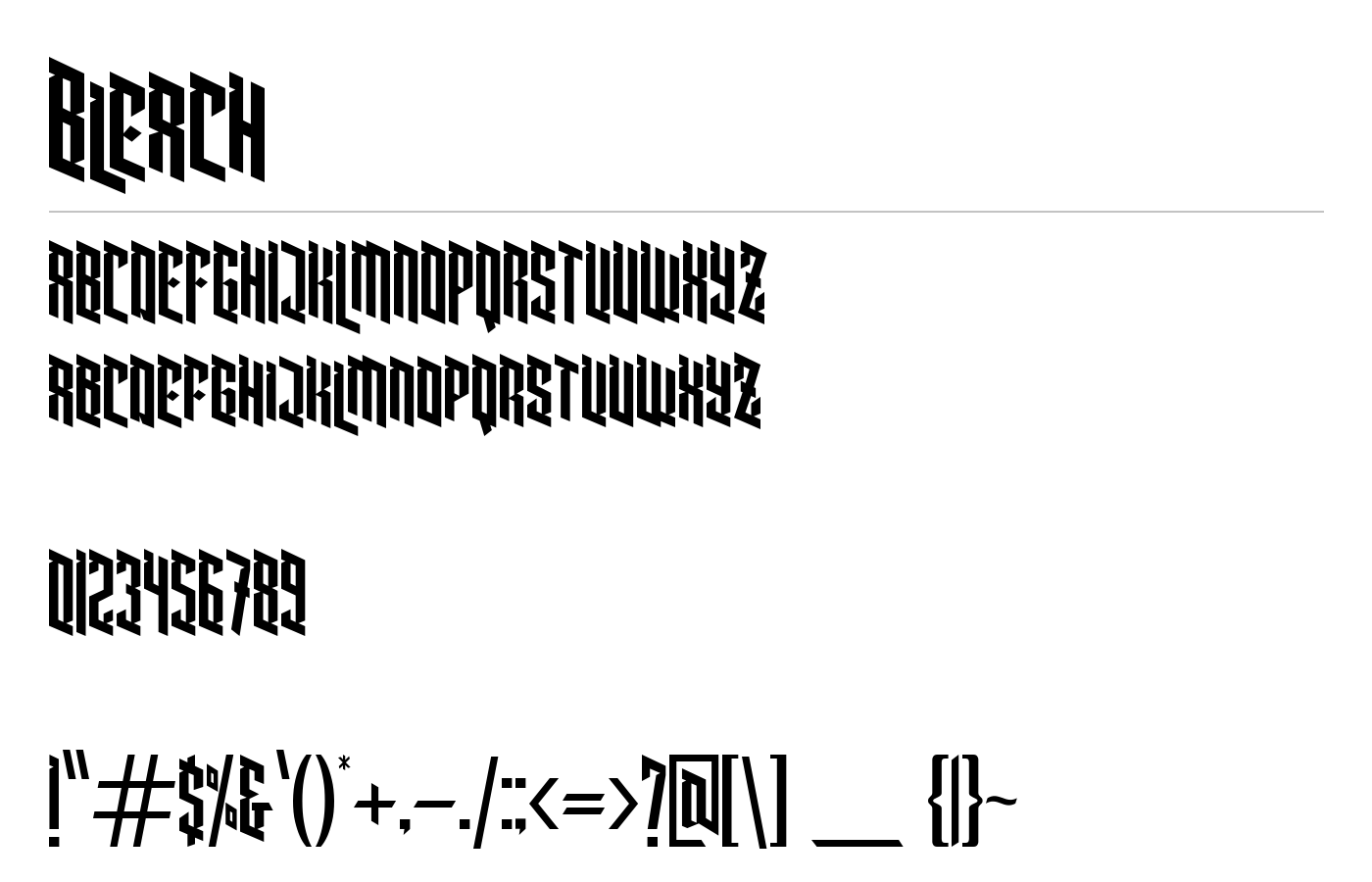
Bleach Font is a bold, condensed sans serif typeface with a strong geometric and modern feel. Its sharp, angular letterforms and high stroke contrast give it an edgy, impactful personality, making it perfect for striking headlines, logos, and branding that aims to convey strength and uniqueness. This font works best in display contexts where attention-grabbing style is key, lending a contemporary and dynamic look to projects in fashion, music, and urban culture.
Bleach Font
About Bleach Font